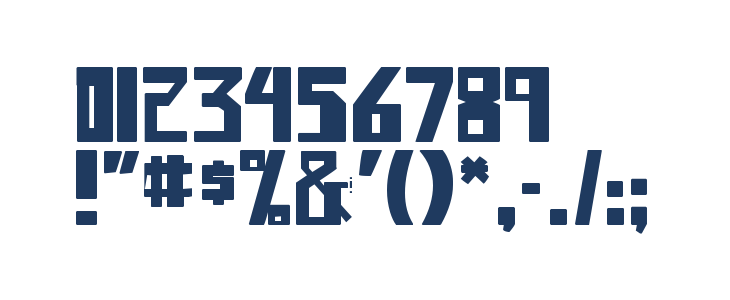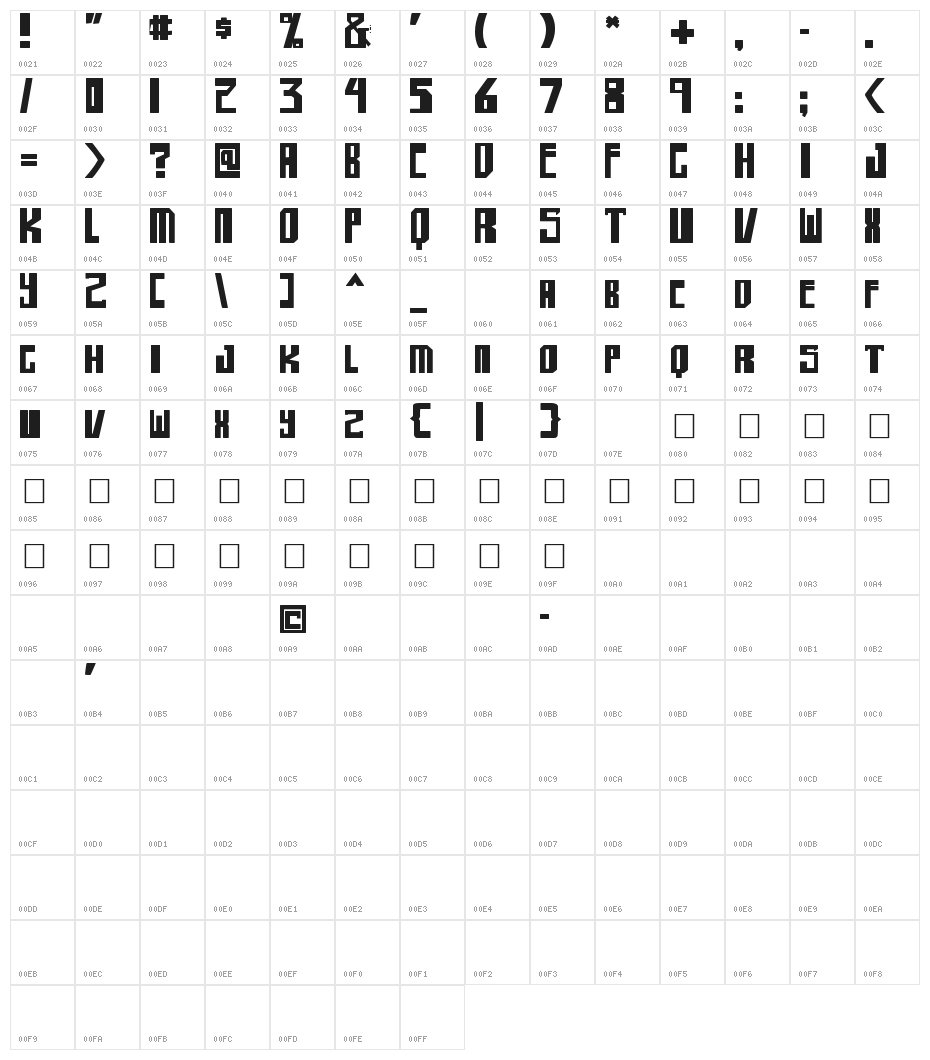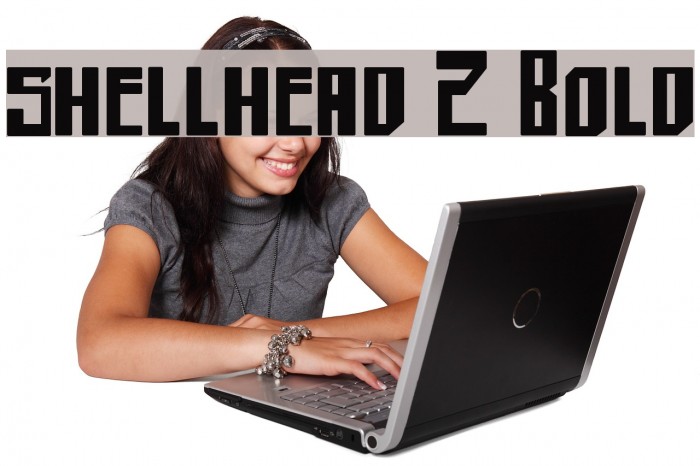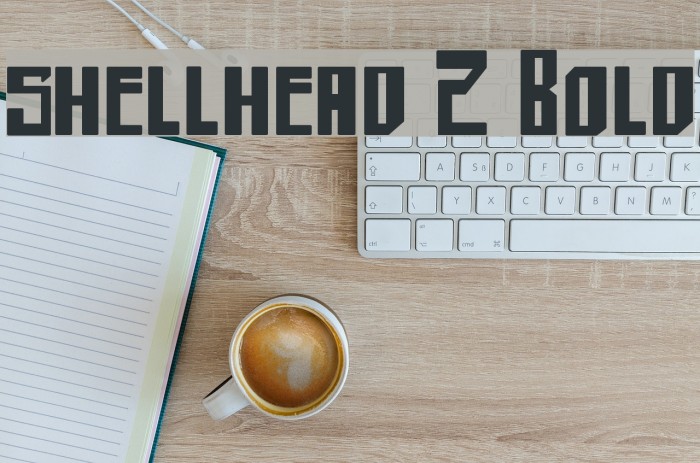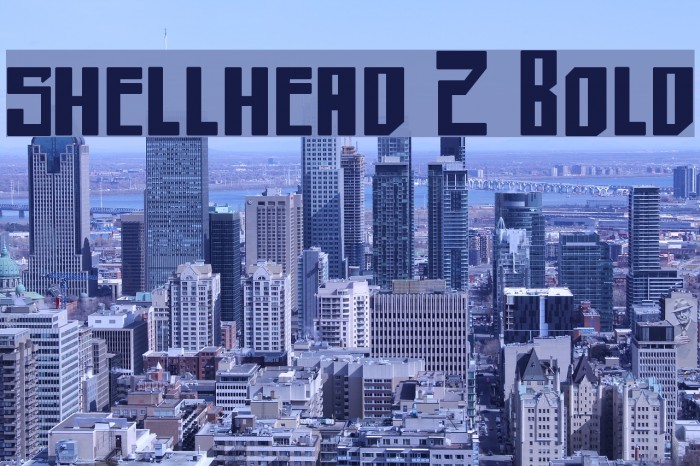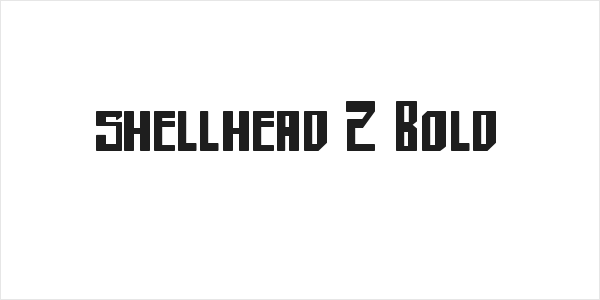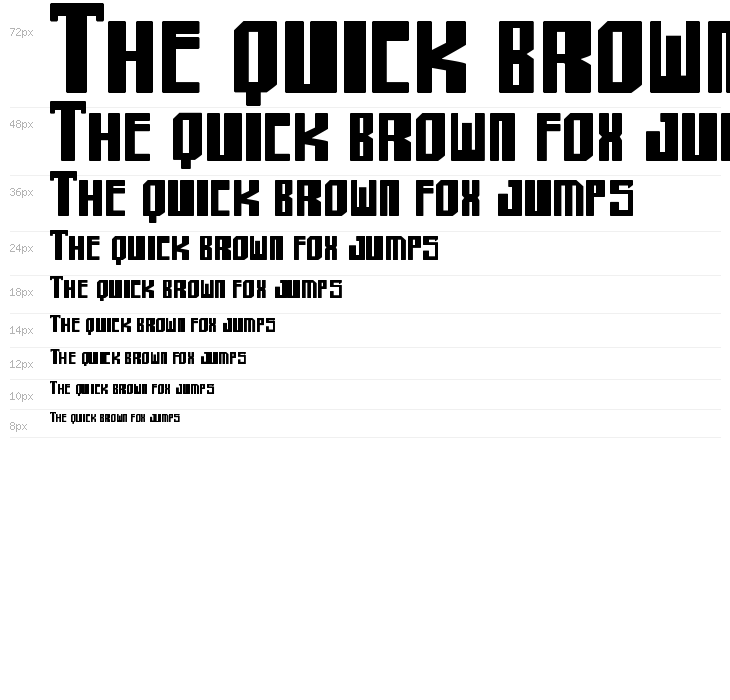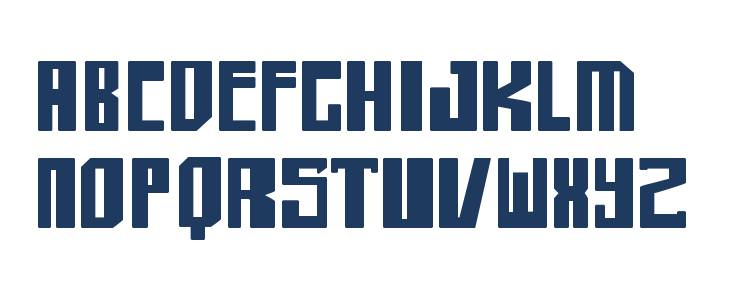
shellhead 2 Bold Font
shellhead 2 Bold Description
This font features a bold, geometric design with a strong, angular appearance. The characters are blocky and robust, with a consistent thickness throughout, giving it a powerful and impactful look. The uppercase letters are particularly striking, with sharp edges and a modern feel. The numerals and special characters maintain this bold aesthetic, ensuring uniformity across all glyphs. This style is reminiscent of industrial or futuristic themes, making it suitable for projects that require a strong visual presence.
| Proposed Projects | Ideal for branding, posters, headlines, and any design requiring a bold statement. |